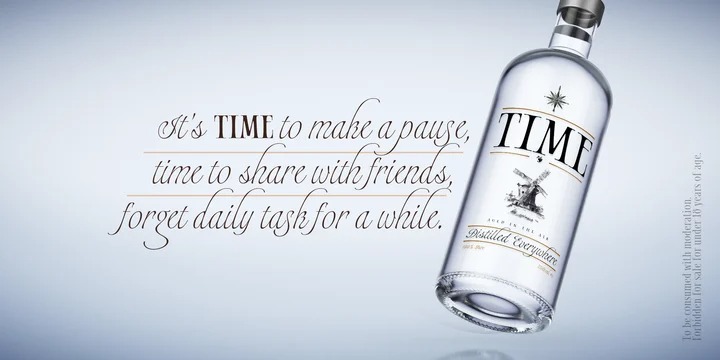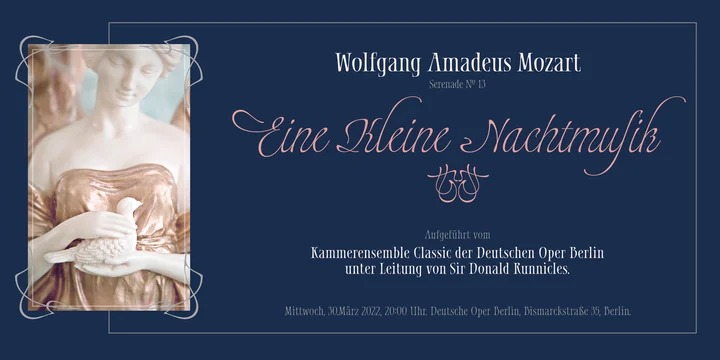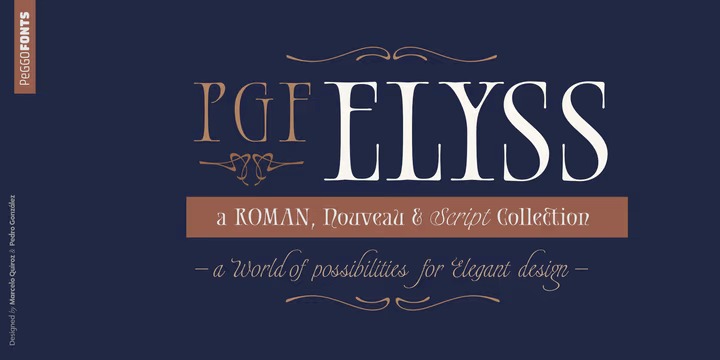
PGF Elyss Font is a vintage serif font Family crafted & designed by PeGGO Fonts . Inspired by Jean Larcher’s calligraphic work. This adventure began with a classic Roman set, then we added a Lombardic, an Elegant Script, and finally a Catchwords and Ornaments set. All under the influence of Art Nouveau organic look, that makes PGF Elyss an ideal project for label, header and cover design, it can even handle over than +200 latin based languages.